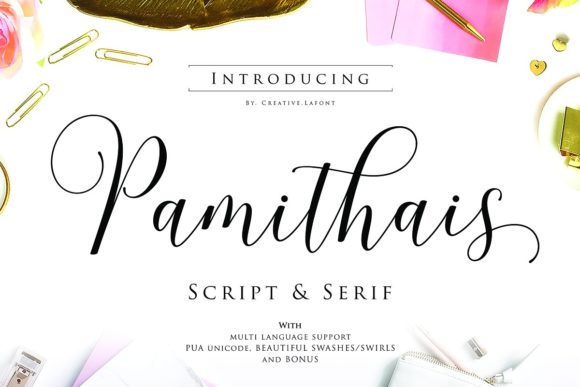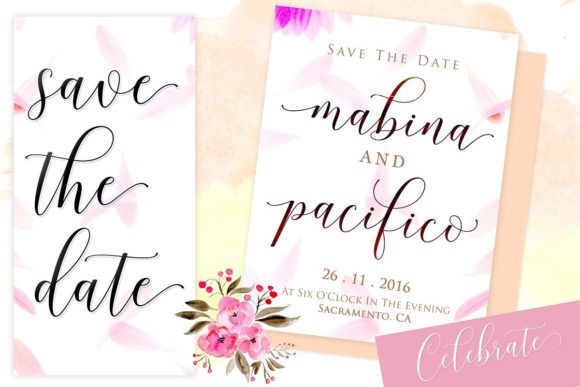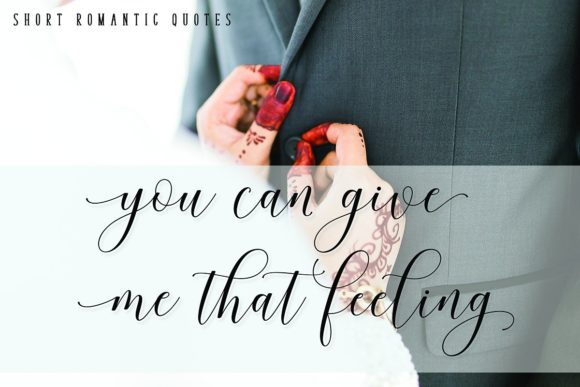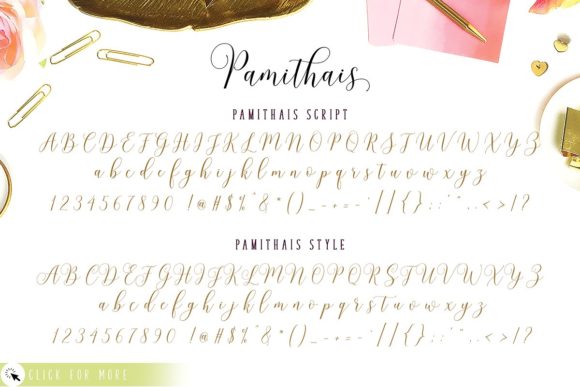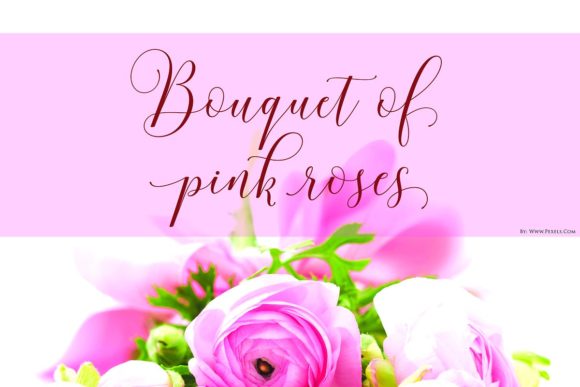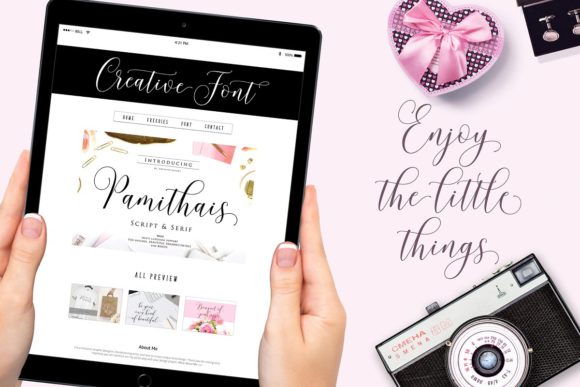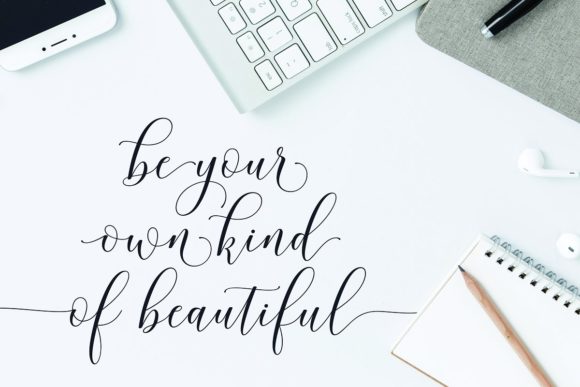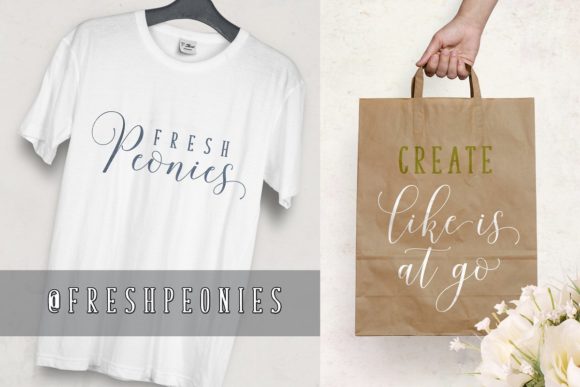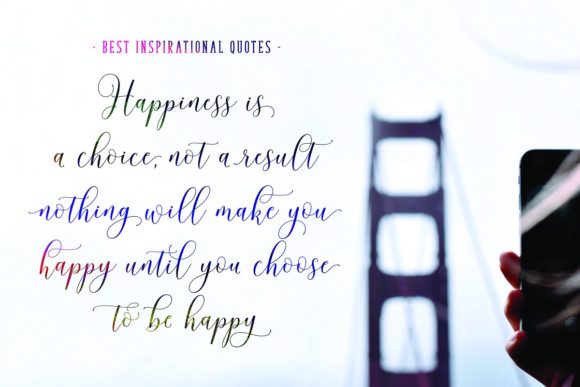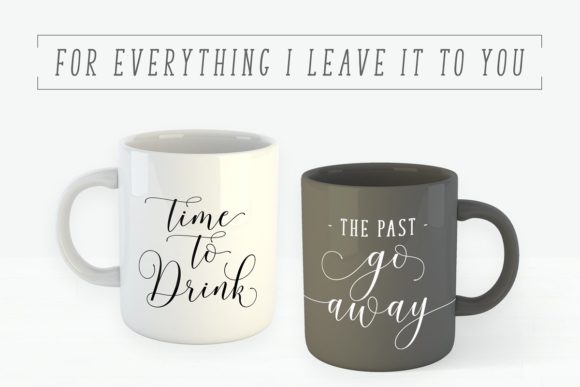
Pamithais Script Font
About Pamithais Script Font
Pamithais Script is a unique blend of classic and modern fonts. Includes irregular styled characters that is perfect for many creative projects